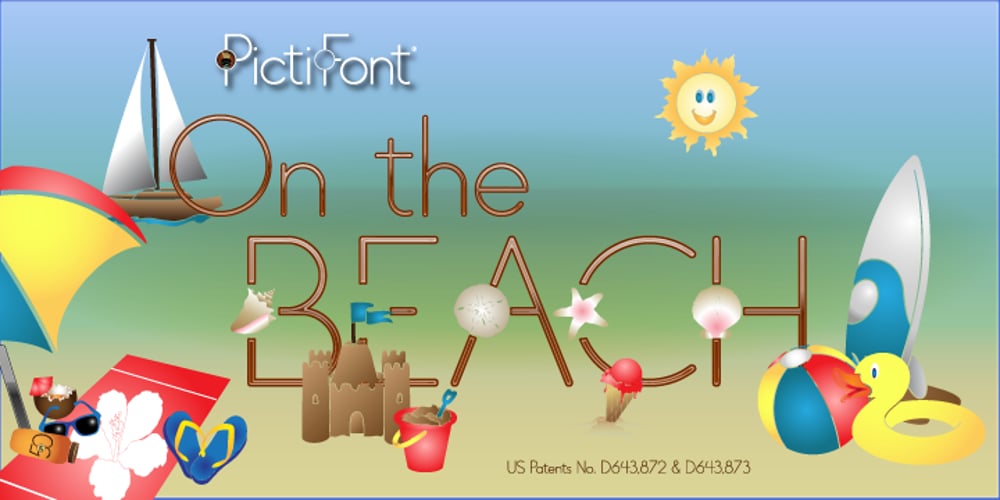
PictiFont Symbols – On The Beach Font Family was designed by Melinda Boyle and published by PictiFont. PictiFont Symbols – On The Beach contains 1 styles and family package options. PictiFont’s newest symbol set, intended to be used within any of the PictiFont™ typefaces, features a sampling of the seashore. From seashells to sailboats, surfboards to sunshine, here are the symbols you need to make all things summer a breeze! Sunscreen anyone?